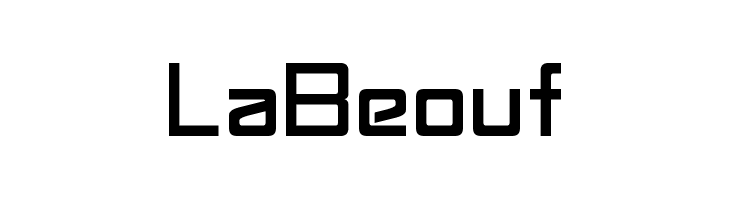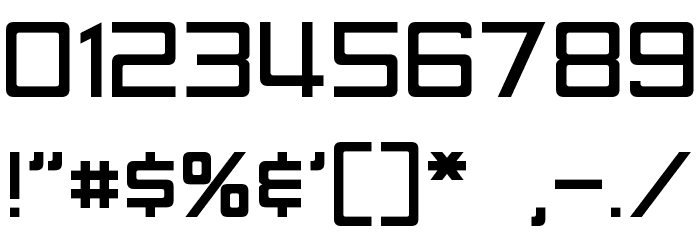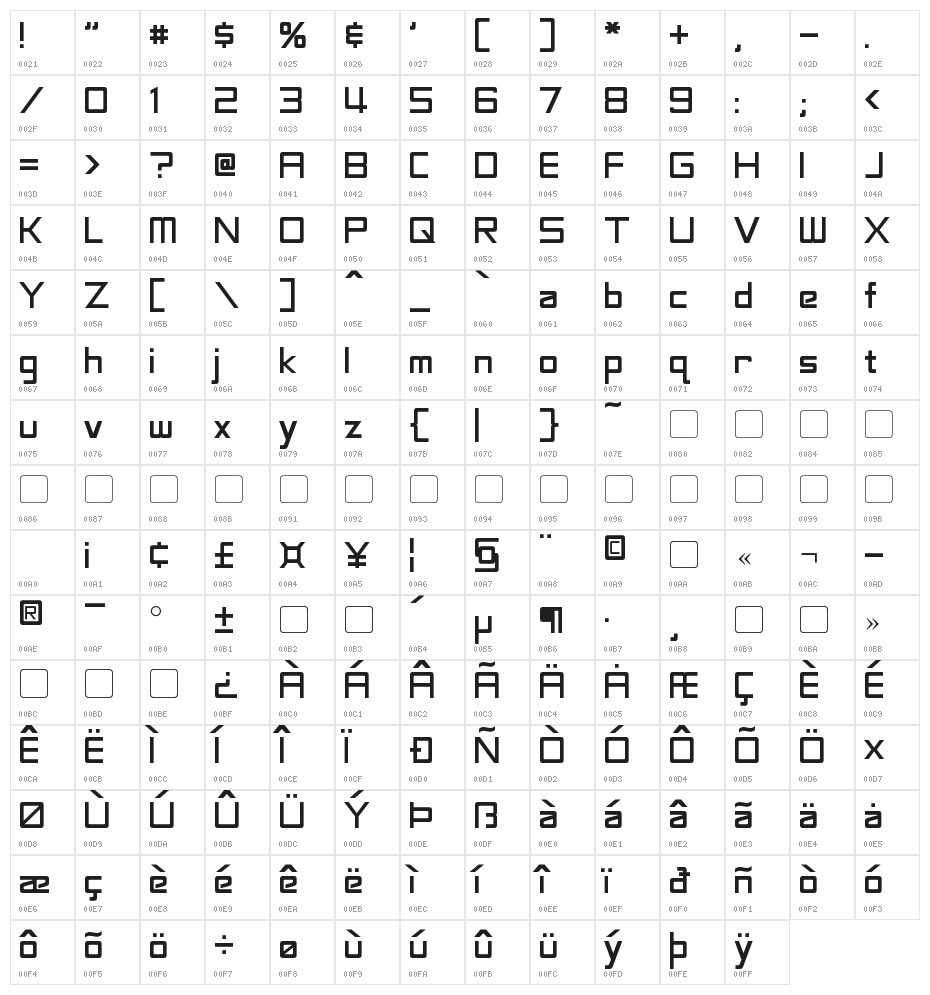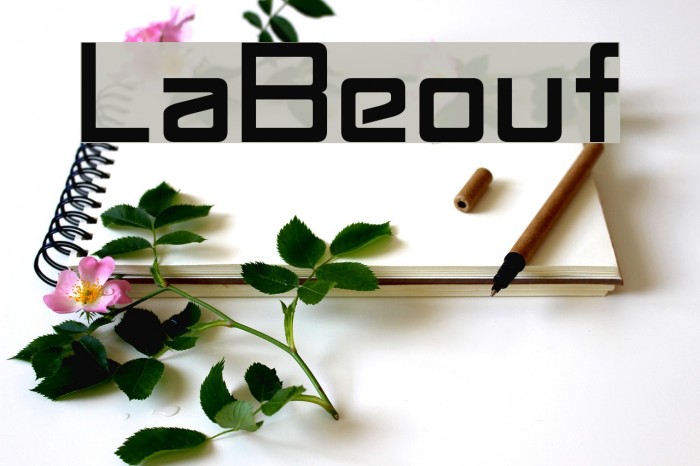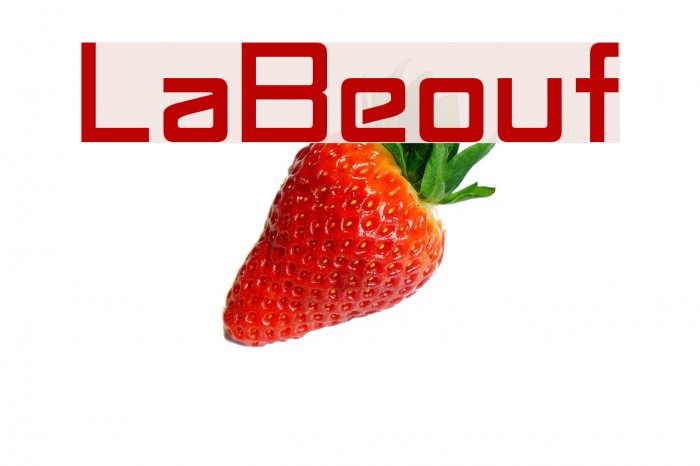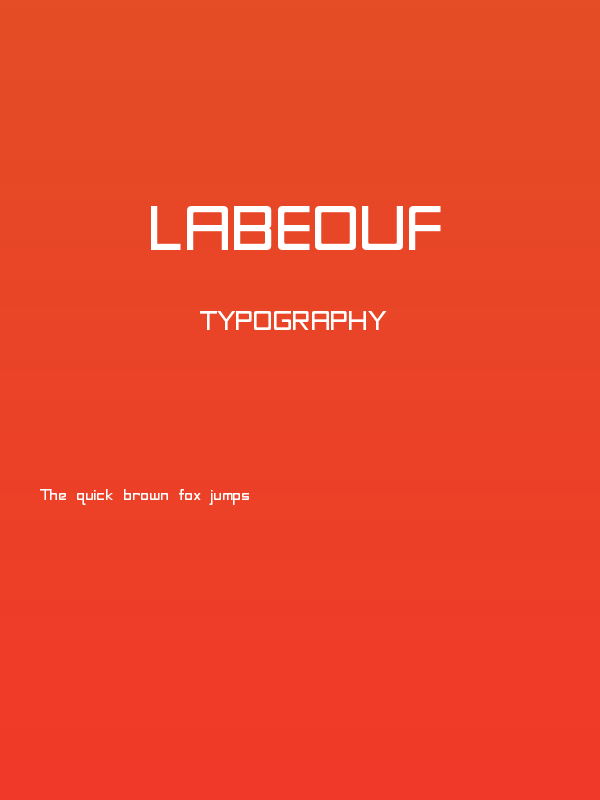
LaBeouf Font
LaBeouf Description
This font features a modern, geometric design with clean lines and a structured appearance. The characters are uniformly proportioned, giving a sense of balance and precision. The uppercase letters are bold and angular, while the lowercase letters maintain a consistent style with slightly rounded edges, adding a touch of softness to the overall look. The numerals are clear and easy to read, matching the style of the alphabet. Special characters are well-integrated, maintaining the font's cohesive design. This font is versatile, suitable for both digital and print media, and can be used to convey a contemporary and professional aesthetic.